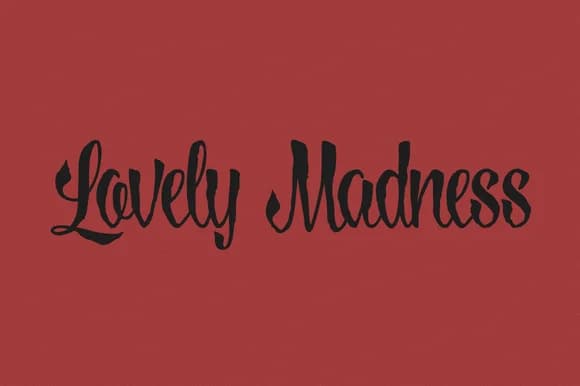
About Paunchy Font
Paunchy Font by Mirco Zett Fonts is a rounded handwritten script characterized by organic letterforms and natural flow that conveys both casualness and refinement. The typeface captures the authentic appeal of hand-lettering while maintaining crisp legibility across different sizes and applications, making it an excellent choice for designers seeking personality without compromising clarity or professional presentation.
This script works particularly well for projects requiring warmth and distinctive character. Designers frequently select it for wedding invitation suites that allow couples to communicate their unique personality from the very first moment. It's equally effective for Etsy product labels on artisan goods, boutique skincare packaging designed to feel authentically handcrafted, DIY craft signs requiring visual charm and attention to detail, and greeting card designs where authentic warmth matters most. The friendly, approachable letterforms also excel in social media graphics, custom sticker designs, and personal branding projects that need handwritten-inspired aesthetics without appearing amateurish or unprofessional. Its rounded curves make it particularly well-suited for projects targeting design-conscious consumers who genuinely value craftsmanship and originality.
The font's flowing style translates beautifully to both digital and print mediums, including heat transfer and vinyl cutting applications. Discover Paunchy Font on Creative Fabrica and bring this distinctive script into your next creative project.
Paunchy Font is a script font that shines as a display or heading face. Pair it with a clean sans-serif or serif font for body text β the contrast creates a clear hierarchy while the two styles stay balanced and easy to read.